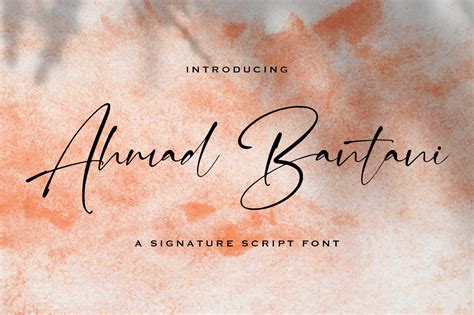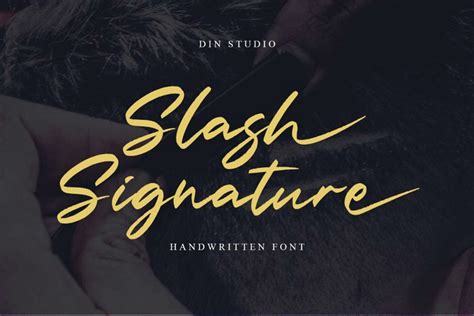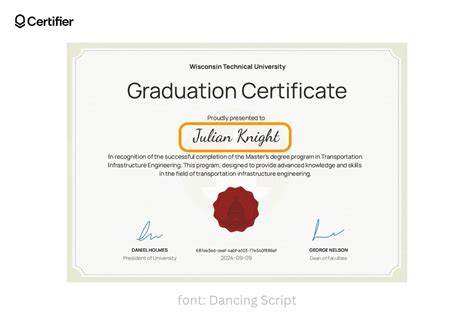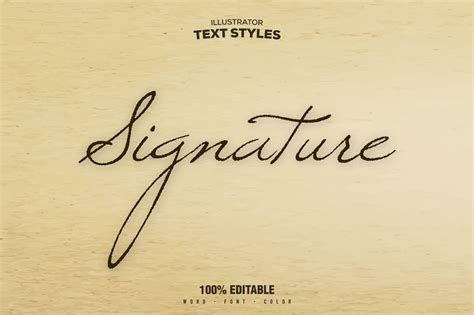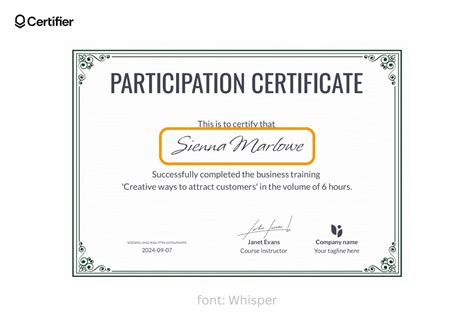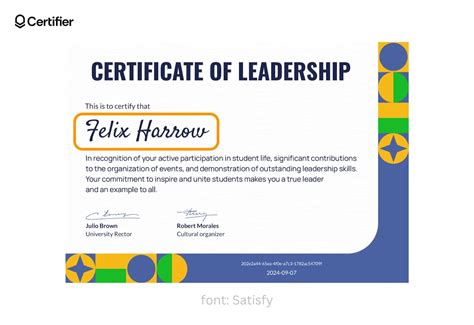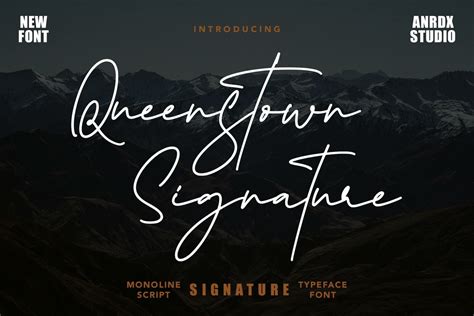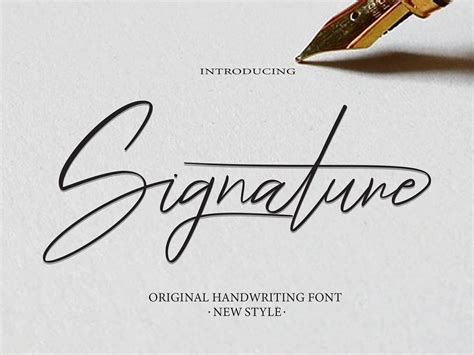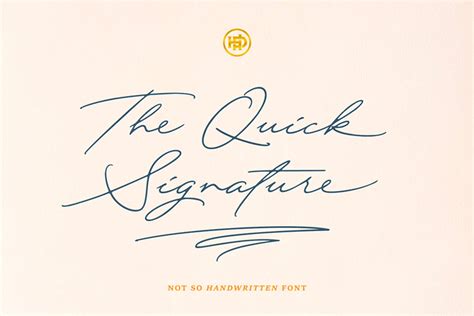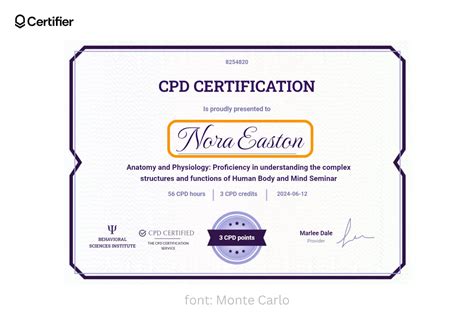
Creating a unique and professional document often involves adding personal touches, such as a signature font in Word. A signature font can enhance the aesthetic appeal of your documents, making them stand out and leaving a lasting impression. Whether you're crafting a formal letter, a resume, or any other important document, choosing the right signature font can elevate your work to the next level.
Understanding Signature Fonts
A signature font is a typeface that mimics the style of a handwritten signature. These fonts are designed to add a personal and distinctive touch to your documents. They can range from elegant and formal to casual and playful, depending on the context and the message you want to convey.
Signature fonts are particularly useful in scenarios where you want to add a personal touch to your documents. For example, if you are creating a wedding invitation, a signature font can make the invitation feel more personal and special. Similarly, if you are designing a business card or a letterhead, a signature font can help you stand out from the competition.
Choosing the Right Signature Font in Word
Selecting the right signature font involves considering several factors. Here are some key points to keep in mind:
- Purpose of the Document: The font you choose should align with the purpose of your document. For formal documents, opt for elegant and professional fonts. For casual documents, you can choose more playful and creative fonts.
- Readability: Ensure that the font is easy to read. While signature fonts can be stylish, they should not compromise readability.
- Compatibility: Make sure the font is compatible with Microsoft Word. Some fonts may not render correctly in Word, so it's essential to test them before finalizing your document.
Customizing Your Signature Font in Word
After installing the signature font, you can customize it further to match your specific needs. Here are some tips for customizing your signature font:
- Font Size: Adjust the font size to ensure it fits well within your document. A larger font size can make your signature stand out, while a smaller size can be more subtle.
- Font Color: Change the font color to match the overall design of your document. You can choose from a variety of colors or even use custom colors.
- Font Effects: Apply font effects such as bold, italic, or underline to enhance the visual appeal of your signature font.
- Text Alignment: Align the text to the left, center, or right, depending on the layout of your document.
Creating a Custom Signature Font
If you can't find a signature font that perfectly matches your style, you can create a custom signature font. Here’s how you can do it:
- Choose a Handwriting Style: Decide on the style of handwriting you want to mimic. You can use your own handwriting or find inspiration from other sources.
- Create a Digital Signature: Use a graphic design tool like Adobe Illustrator or Inkscape to create a digital version of your signature. Ensure that the lines are smooth and the letters are well-defined.
- Convert to Font: Use a font creation tool like FontForge or BirdFont to convert your digital signature into a font file. Follow the instructions provided by the tool to complete the conversion process.
- Install the Font: Once the font is created, install it on your system and use it in Microsoft Word as described earlier.
💡 Note: Creating a custom signature font requires some graphic design skills. If you are not familiar with graphic design tools, you may need to seek help from a professional designer.
Using Signature Fonts in Different Document Types
Signature fonts can be used in various types of documents to add a personal touch. Here are some examples:
- Resumes: A signature font can make your resume stand out from the crowd. Use it for your name or for section headings to add a unique touch.